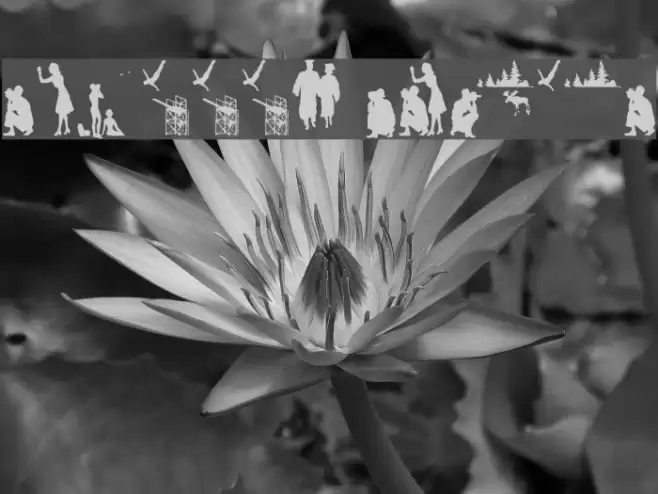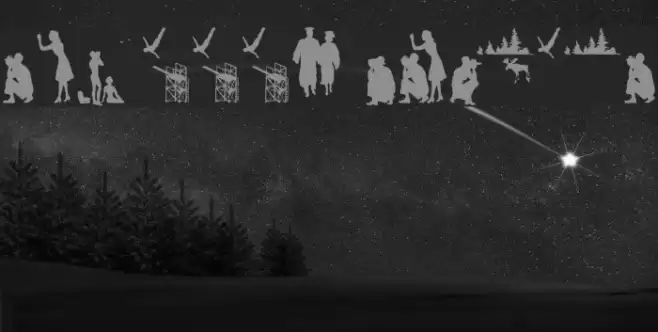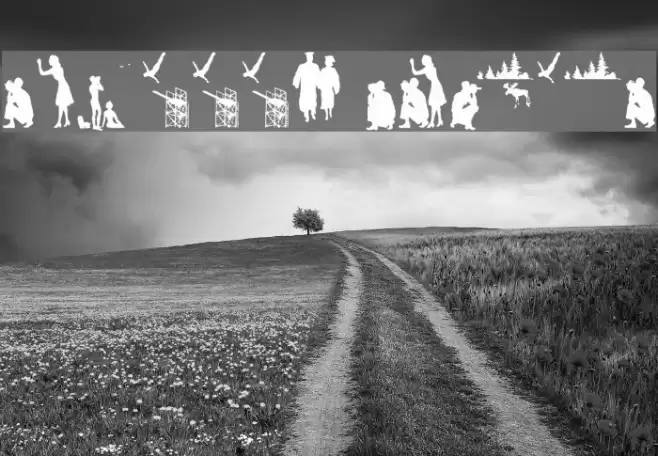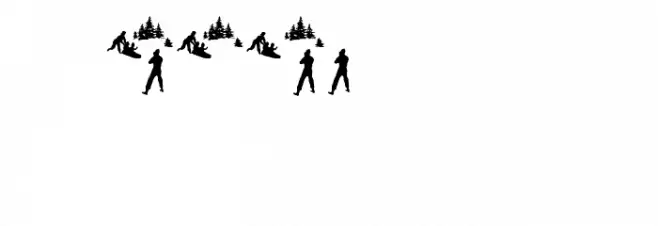
stillframes Font
stillframes Description
A decorative display font composed of detailed silhouette illustrations depicting various scenes of people, animals, and nature. Each character is represented by a unique still frame, creating a narrative and whimsical visual style rather than traditional letterforms.
A pictorial silhouette font with narrative scenes for each character from Uncategorized fonts.
- Proposed Projects: Storybooks, posters, creative branding, event invitations, children’s materials, art projects.
- Overall Style: Decorative, Narrative, Whimsical
- Use Case: Logos, Posters, Headlines, Artistic projects